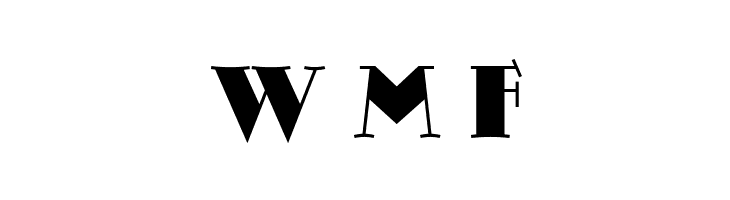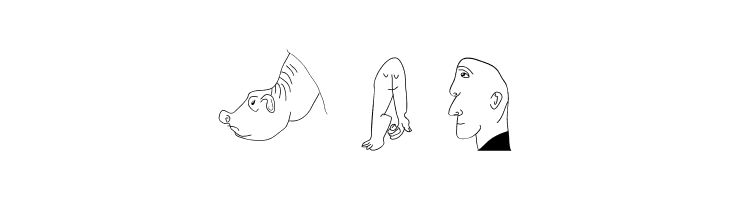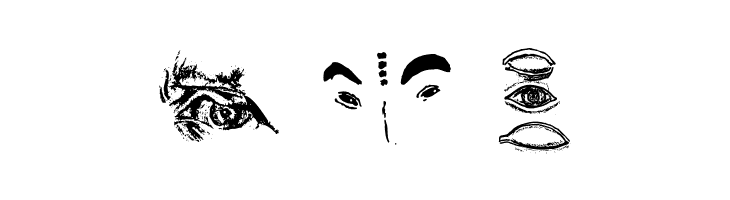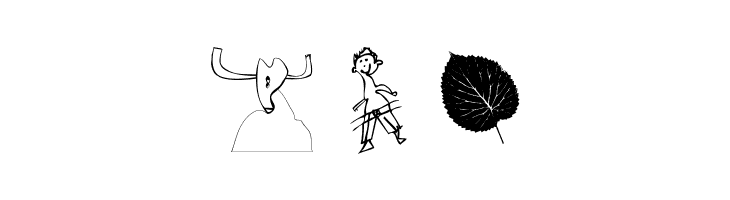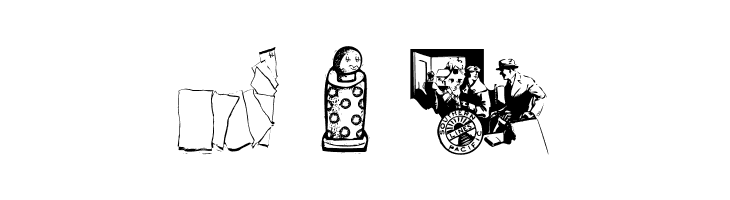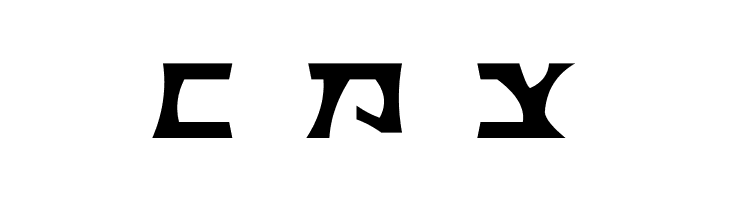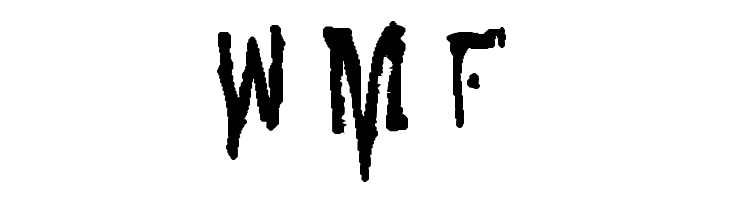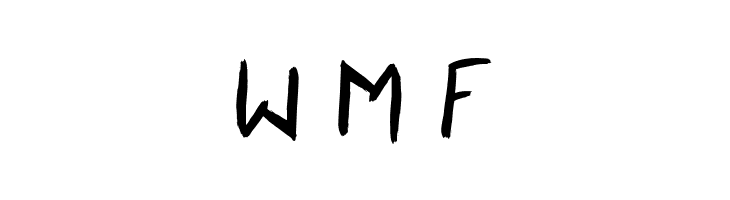
• sin of the innoccent
A bold, jagged, and distressed decorative font with a chaotic and intense style.
• sir william
• Sith Prophecy
• SketchBookOne
A collection of illustrative and decorative elements with a whimsical and Halloween theme.
• SketchbookTwo
A sketch-style dingbat font featuring diverse hand-drawn illustrations.
• SketcheriaTwo
A whimsical and artistic font featuring playful, hand-drawn illustrations.
• SketchesX
Hand-drawn, sketch-style font with expressive faces and abstract elements.
• Skinny
• SkippingBrush
A bold, brush-style font with dynamic strokes and a hand-painted look.
• Skittles n Beer NF
A bold, modern font with sharp angles and unique serifs.